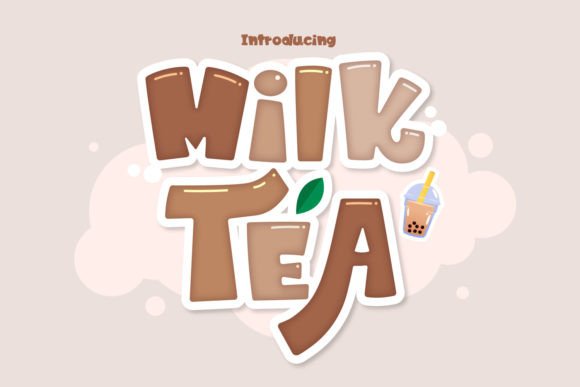
Introducing Milk Tea Font, a delightful and whimsical display font from the creative minds at BB Type Studios. This font family boasts a unique style that is both playful and quirky, making it a standout addition to any font collection.
Milk Tea Font is the perfect choice for designers looking to add a touch of fun to their creative projects. Whether you're working on a logo, social media graphics, or advertising materials, this font has the potential to transform your design into a visual masterpiece.
One of the standout features of Milk Tea Font is its PUA encoding, which means accessing all of the glyphs and ligatures is a breeze. This makes it incredibly versatile and perfect for designers of all levels.
But what sets Milk Tea Font apart is its ability to evoke emotion in your audience. With its charming and lighthearted style, this font is sure to put a smile on the face of anyone who sees it. Use it to convey a sense of joy, playfulness, or even nostalgia.